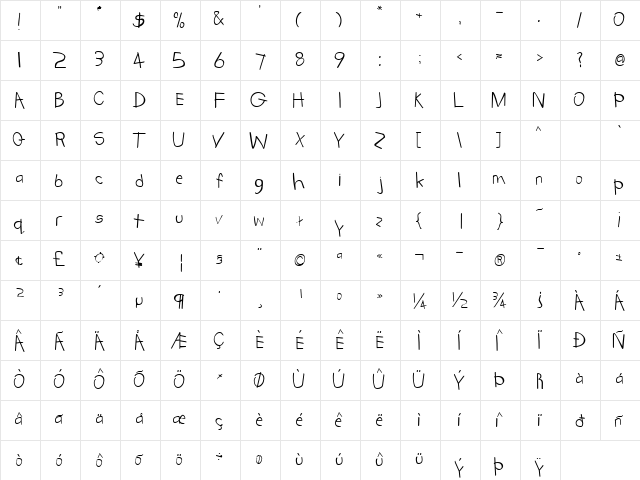
Kidstuff Regular Font Preview
Kidstuff Regular
Kidstuff Regular Font Details
Design Context for Kidstuff Typeface
Kidstuff trades formality for fun, with bouncy, characterful letterforms that bring warmth and energy to any project.
Font Pairing: Pairs well with a rounded or humanist sans for body copy, maintaining the friendly tone without relying on Kidstuff to carry extended reading.
Pro Tip: Avoid using Kidstuff for long passages of text — it works best for headlines, labels, and short calls to action.